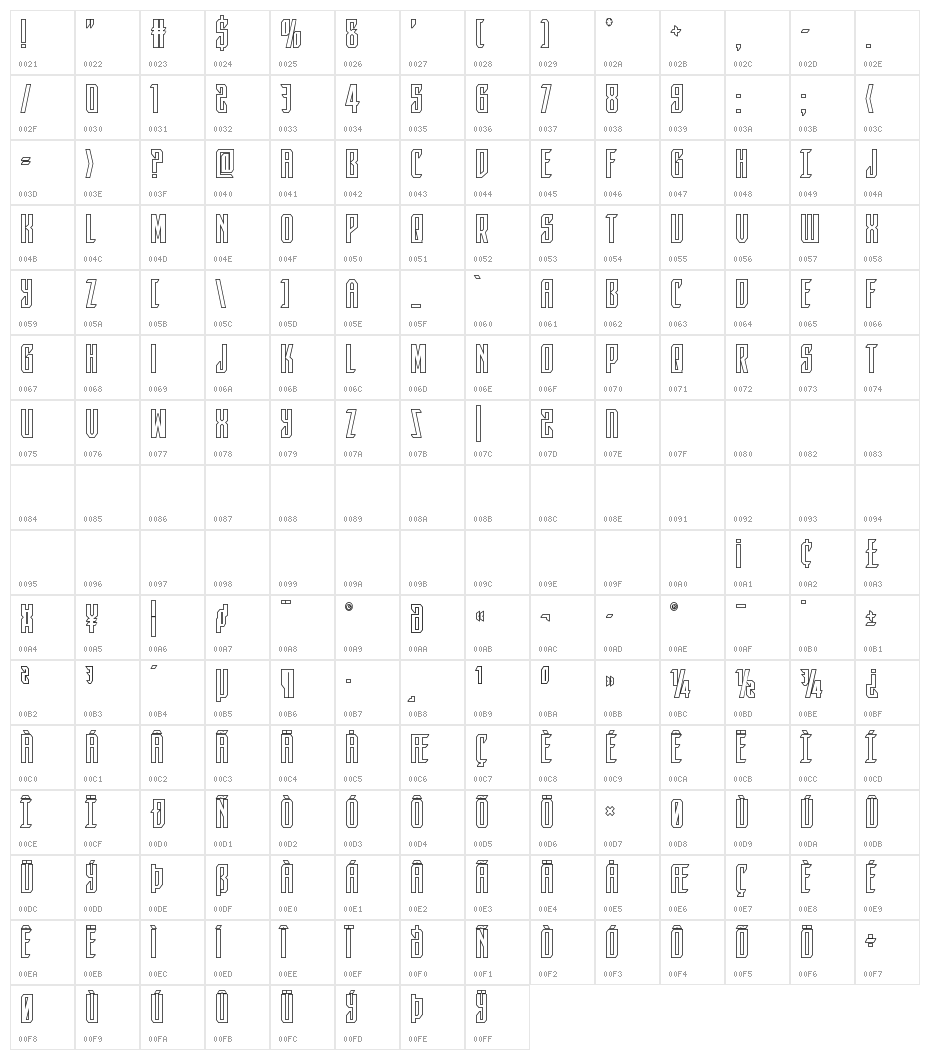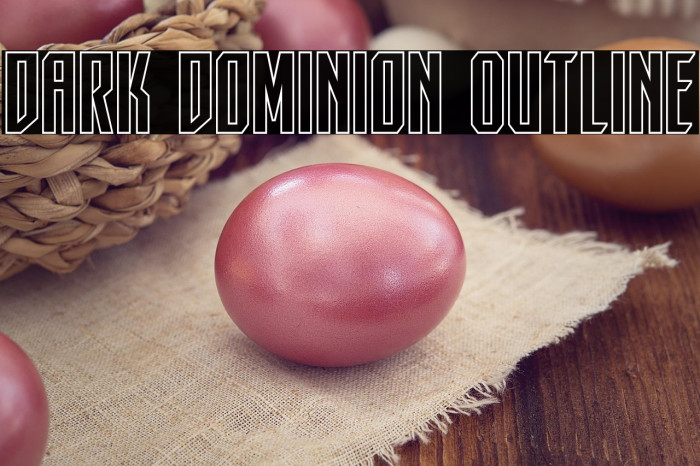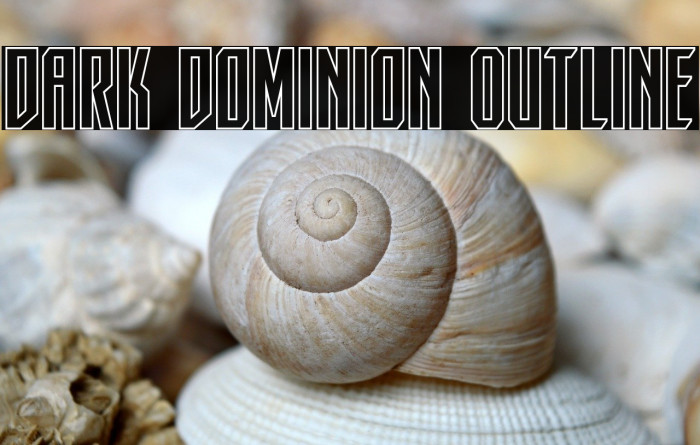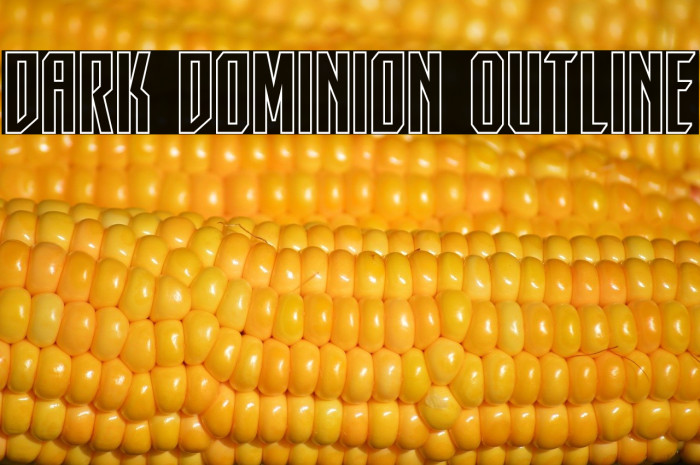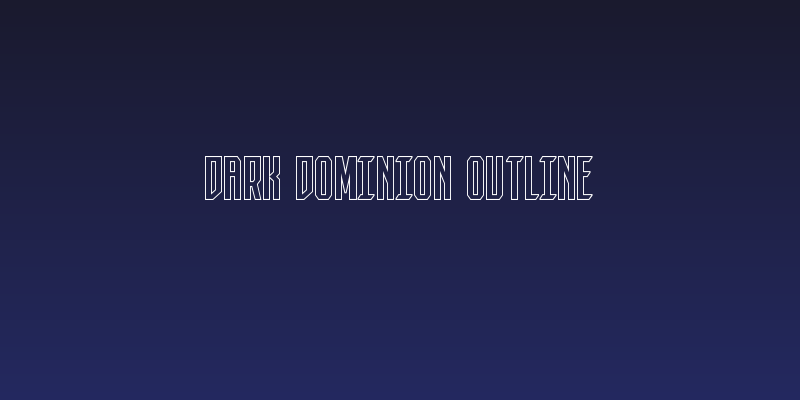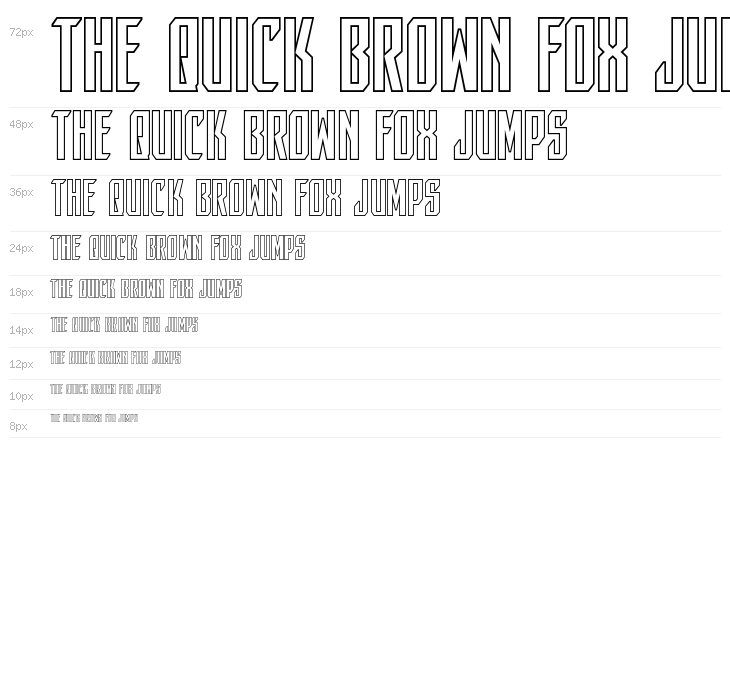
Dark Dominion Outline Font
Dark Dominion Outline Description
This font features a bold, geometric outline style that gives it a striking and modern appearance. The characters are tall and narrow, with sharp angles and clean lines that create a sense of strength and precision. The uppercase and lowercase letters maintain a consistent height, contributing to a uniform look. The numbers and special characters follow the same design principles, ensuring a cohesive aesthetic across all elements. The outlined nature of the font adds a layer of depth and dimension, making it ideal for eye-catching designs.